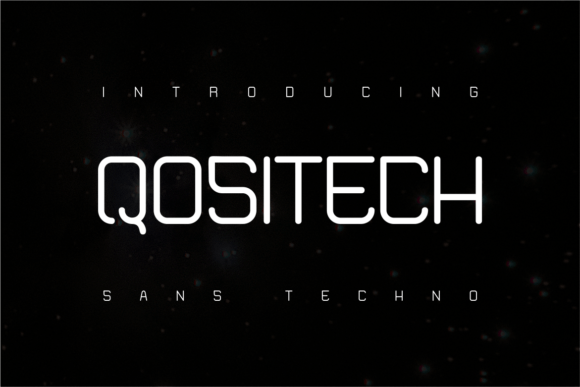
Dive into the realm of sleek, modern typography with Qositech Font, the sans serif masterpiece crafted by Monoletter, a name synonymous with innovation and excellence in the world of digital artistry. Qositech is not just a font; it's a gateway to the future, a font that embodies the spirit of technology, progress, and limitless possibilities.
Unleash the power of Qositech in your designs, and watch as your creations transform into captivating expressions of the digital age. Its thin, precise lines evoke a sense of elegance and sophistication, while its subtle techno vibes add a touch of intrigue and excitement. Whether you're designing for websites, apps, posters, or any other digital medium, Qositech will elevate your work to new heights of visual appeal.
With Qositech as your font of choice, you'll effortlessly convey the essence of technology, innovation, and progress. Its clean, minimalist aesthetic is perfect for showcasing the latest gadgets, sleek automotive designs, cutting-edge robotics, and awe-inspiring discoveries of the solar system.
Qositech is more than just a font; it's an investment in your creative vision, a tool that empowers you to communicate your ideas with clarity, style, and impact. Its versatility knows no bounds, making it the perfect choice for a wide range of projects, from sleek corporate presentations to dynamic marketing campaigns.
Embark on a typographic journey like no other with Qositech Font. Let your designs speak volumes, capturing the essence of technology and innovation like never before. Experience the transformative power of Qositech and see your creative dreams come to life.